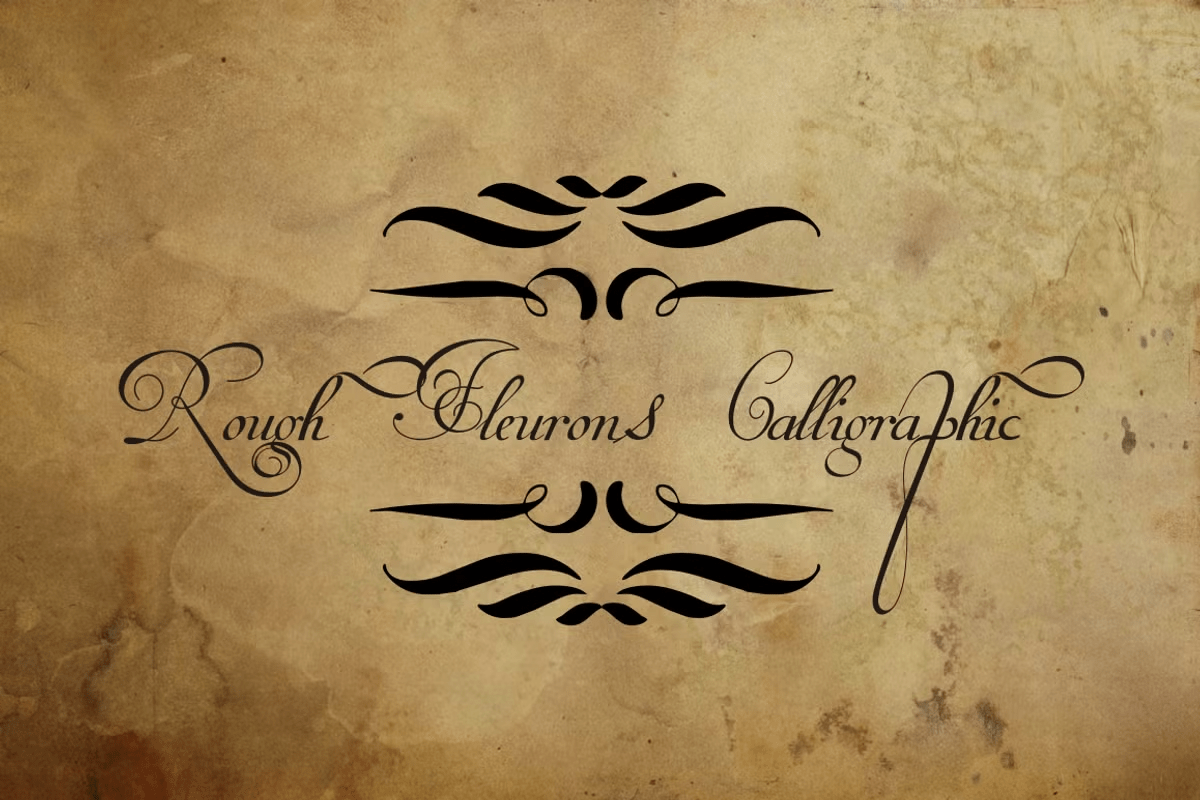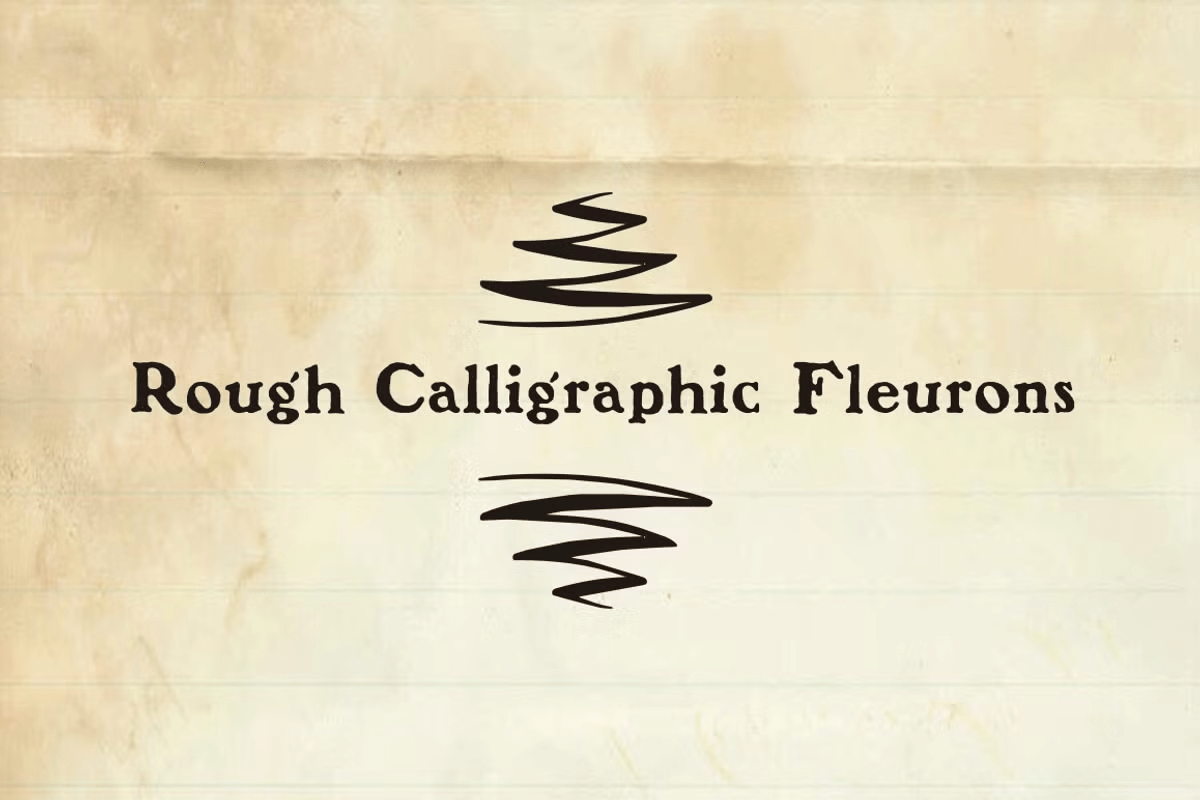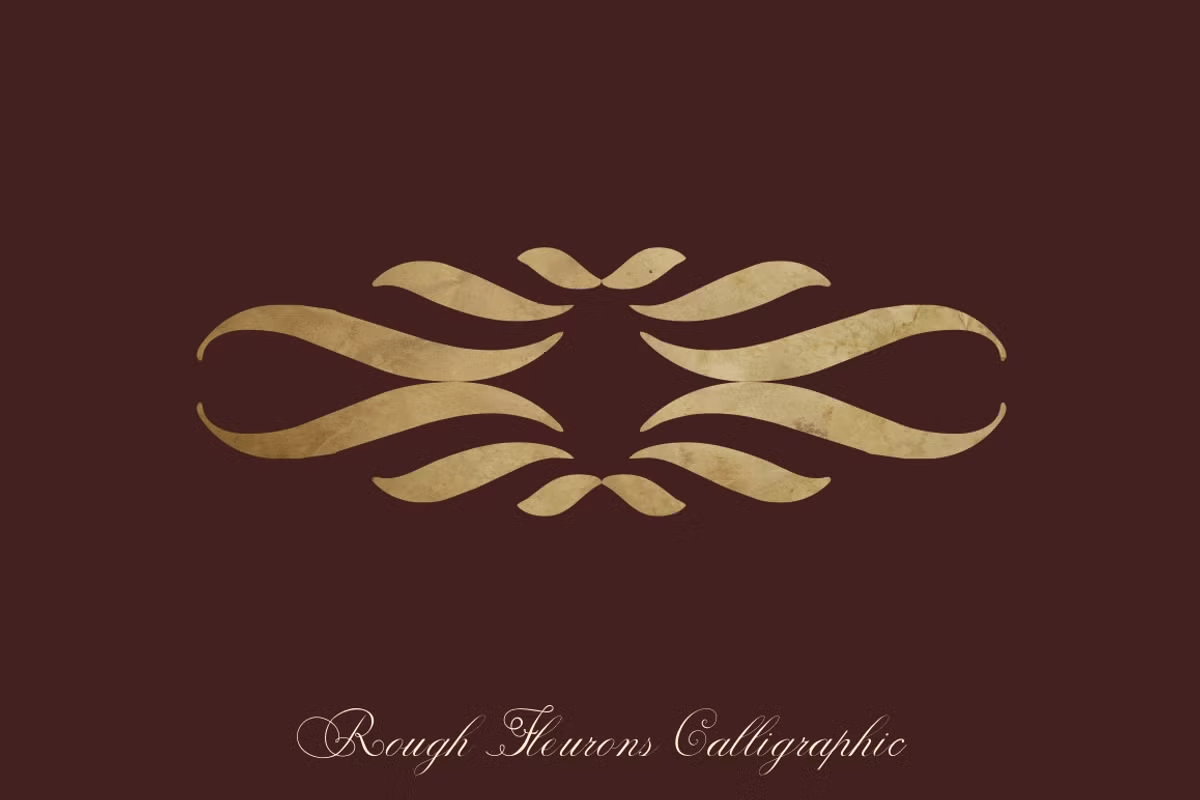
Rough Fleurons Calligraphic
About Rough Fleurons Calligraphic
A dingbat collection of various border and flourish-like elements drawn with a calligraphic touch that contains 87 glyphs.